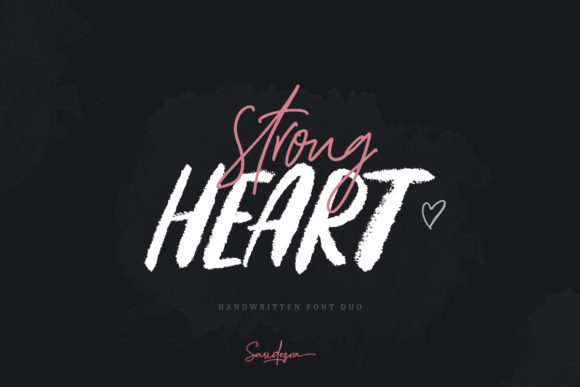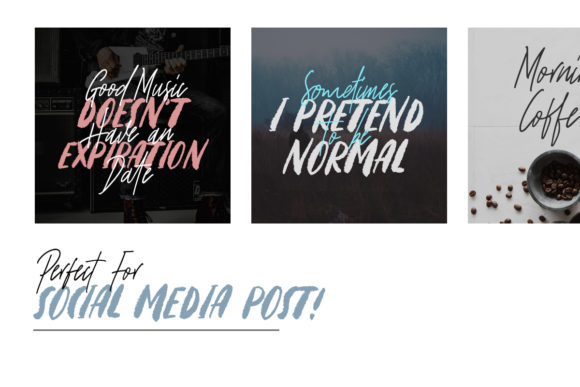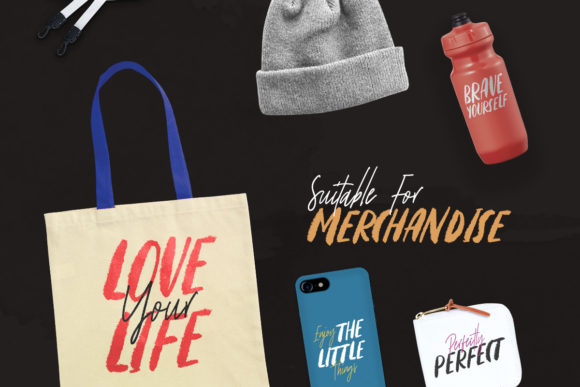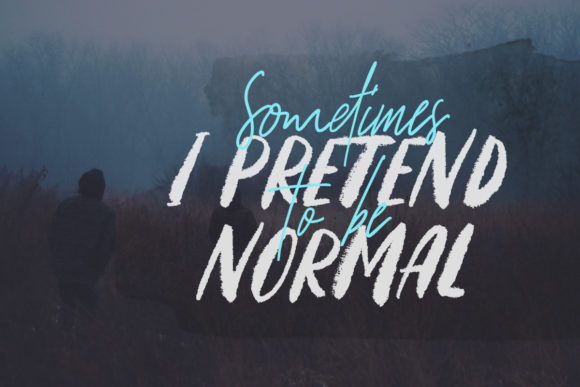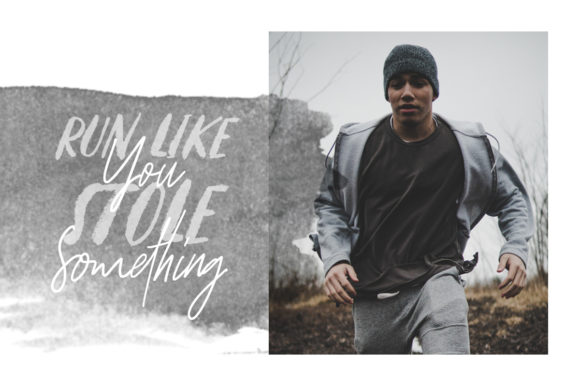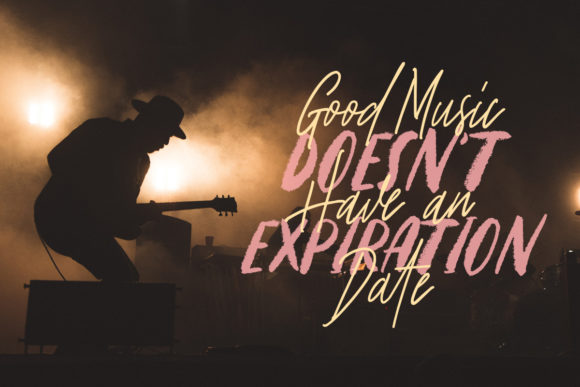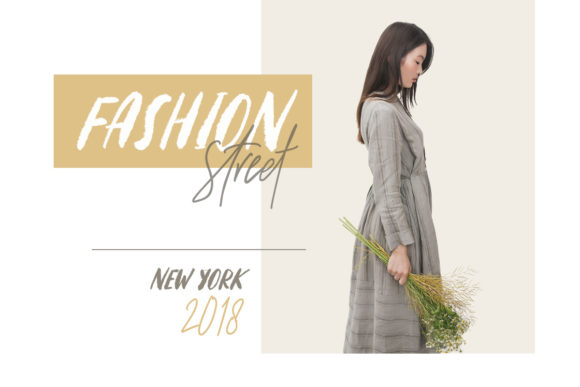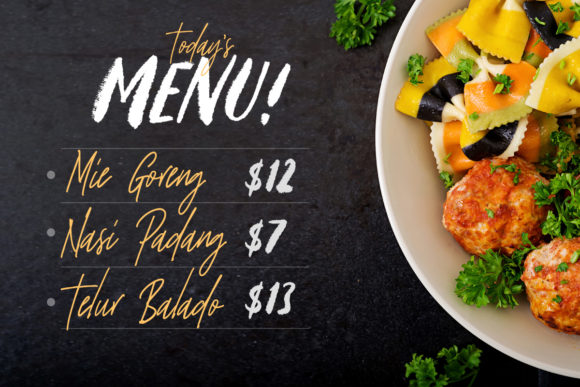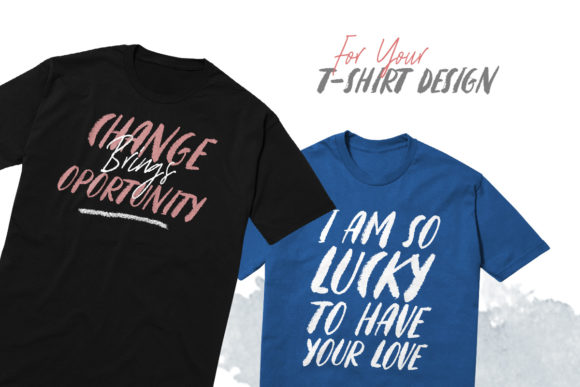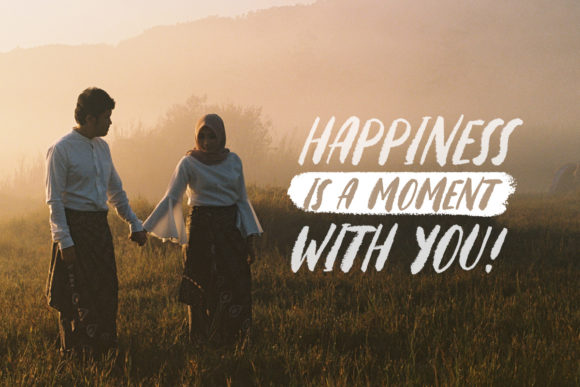
Strong Heart Duo Font
About Strong Heart Duo Font
The Strong Heart is an elegant and striking font duo. The script version includes lovely vibes, while the caps version has a strong bold look. The two included versions can be combined perfectly together and are applicable in every project.